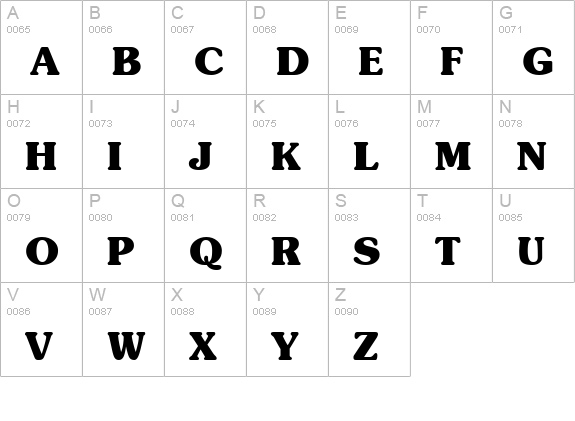
SoutaneBlack Regular Font Details
SoutaneBlack Regular is the standard, neutral variant in the SoutaneBlack typeface family \xE2\x80\x94 well suited to general body text, paragraphs, and standard typographic work.
SoutaneBlack Regular font, with its sleek and sophisticated design, is the perfect choice for adding a touch of elegance to any project. This font features clean lines and balanced proportions, making it both modern and timeless. Its bold weight commands attention, making a powerful statement wherever it is used. But what sets SoutaneBlack Regular font apart is that it is not only visually stunning but also freely available to download. FontsMarket.com offers this font as a free download, allowing designers, creatives, and enthusiasts to access its beauty without any cost. This accessibility makes it a valuable resource for anyone looking to elevate their designs without breaking the bank. The versatility of SoutaneBlack Regular font is another reason why it stands out. Whether used for branding, headlines, posters, or any other design project, this font adapts effortlessly and delivers a striking impact. Its legibility ensures that your message is delivered with clarity and style, enhancing the overall visual experience for your audience. With SoutaneBlack Regular font, your designs will exude confidence and professionalism. Its timeless appeal and free availability make it an essential addition to any font collection. Download this font today from FontsMarket.com, and unlock its potential to transform your designs into works of art.